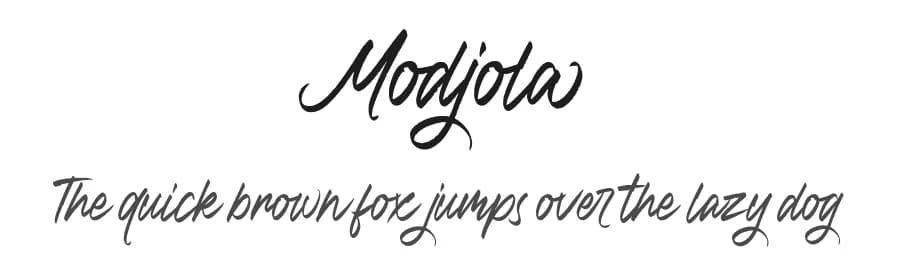
About Modjola Font
Modjola Specifications
| Font Family | Modjola |
| Full Name | Modjola |
| Glyph Count | 224 glyphs |
| Designer | Salman Mashudi |
Modjola Font is a script font that shines as a display or heading face. Pair it with a clean sans-serif or serif font for body text β the contrast creates a clear hierarchy while the two styles stay balanced and easy to read.
Modjola Font